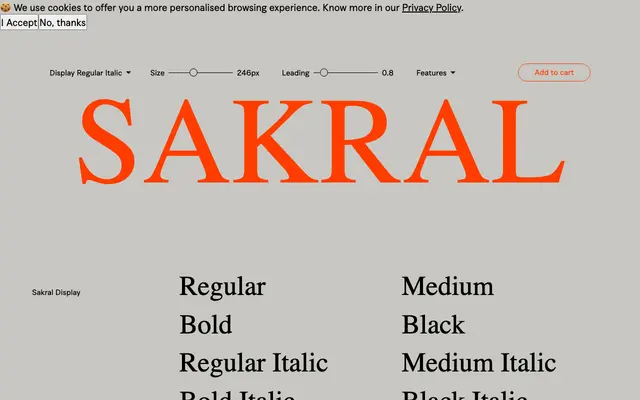
A serif family split into Display and Text optical sizes, each running across four weights with matching italics for editorial and publication use.
Sakral divides into two purpose-built subfamilies: Sakral Display for large settings and Sakral Text for body copy, each offering Regular, Medium, Bold and Black with corresponding italics. The family carries an extensive OpenType feature set including small caps, old-style figures, historical forms, ornaments and fractions, making it well suited to long-form typesetting. Sample settings in German, Spanish and English suggest broad Latin coverage and a design sensibility oriented towards cultural and editorial contexts.
Sakral presents as a serif with Display and Text optical subfamilies, suggesting classical proportions adapted for both large-scale and body use, consistent with a transitional or contemporary serif classification.